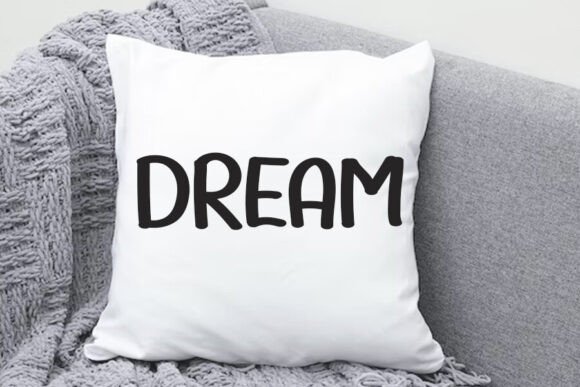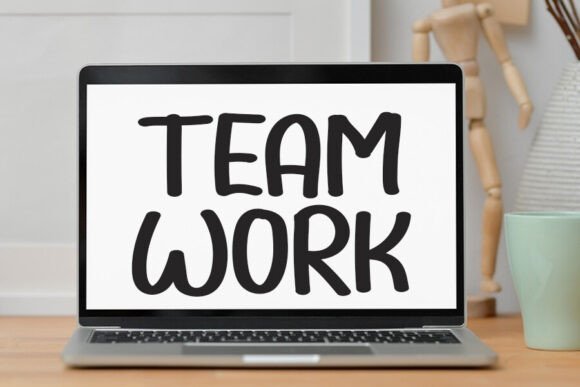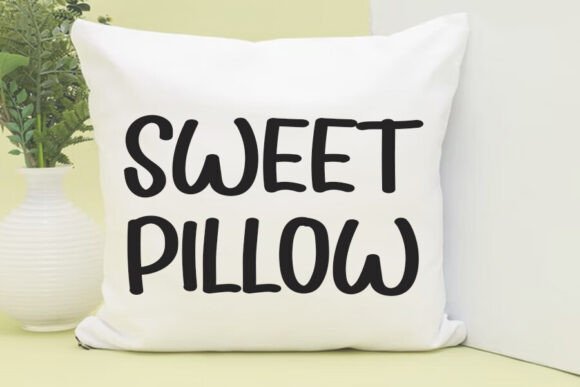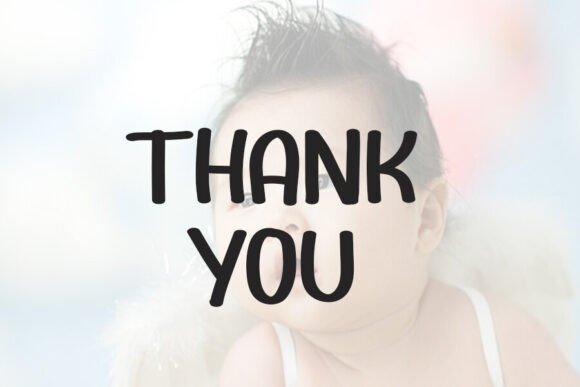
The Birth of a New Design Era
Imagine you’re browsing through your favorite design platform, searching for the perfect font to elevate your latest project. Suddenly, a font catches your eye – its unique curves and playful touch transport you to a world of creativity and possibility. This is exactly what happens when you discover the “Baby Happy Font”, a game-changing typeface that brings a breath of fresh air to your designs.
Designed to be versatile and captivating, the “Baby Happy Font” is more than just a font – it’s a key to unlocking your creative potential. Whether you’re a seasoned designer or just starting out, this font has the power to transform your designs and take your business to the next level. With its simplicity and distinctive appeal, the “Baby Happy Font” is a must-have in every designer’s toolkit.
- Unique Characteristics: The font features a unique, playful design with rounded edges and soft curves, making it ideal for children’s books, nursery decor, and educational materials.
Baby Happy Font Review
As a designer, I was excited to dive into the Baby Happy Font, a cute and playful script font that’s perfect for kids’ content, nursery decor, or even children’s book covers. Here’s my honest review:
- The font is incredibly cute and fun, perfect for capturing a playful vibe.
- It’s highly legible, even at smaller font sizes, making it ideal for children’s content.
- The font comes in a range of styles, including bold, italic, and regular, giving you flexibility in your design.
- It’s also very versatile, suitable for both digital and print designs.
- The font may be too childish for more mature audiences, which could limit its use in certain contexts.
- The font’s lines and shapes can be a bit too rounded, which may not be suitable for designs that require a more modern or minimalist feel.
The Baby Happy Font is a delightful addition to any designer’s toolkit, perfect for projects that require a playful and fun vibe. While it may have some limitations, its cute and legible design make it a great choice for kids’ content, nursery decor, or children’s book covers. Overall, I’d give it 4 out of 5 stars and definitely recommend it for the right projects.
Tips for Getting the Most Out of “Baby Happy Font”
For the best results, use “Baby Happy Font” for projects that require a playful and child-friendly tone. Experiment with different font sizes and colors to create visual interest and emphasis.
“Baby Happy Font” is ideal for projects related to children, such as:
– Baby announcements and birth certificates
– Children’s book covers and illustrations
– Party invitations and decorations
– Educational materials and worksheets